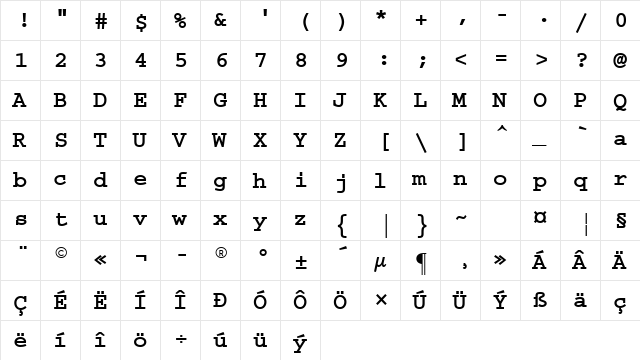
Courier (WE) Bold
Design Context for Courier (WE) Typeface
Courier (WE) uses fixed-width spacing throughout, giving it the structured, systematic character associated with coding environments and technical documentation. Its bold stroke weight gives it real presence on the page.
Pro Tip: Pair Courier (WE) with a proportional sans for UI contexts where code-style labels and regular body copy need to coexist.